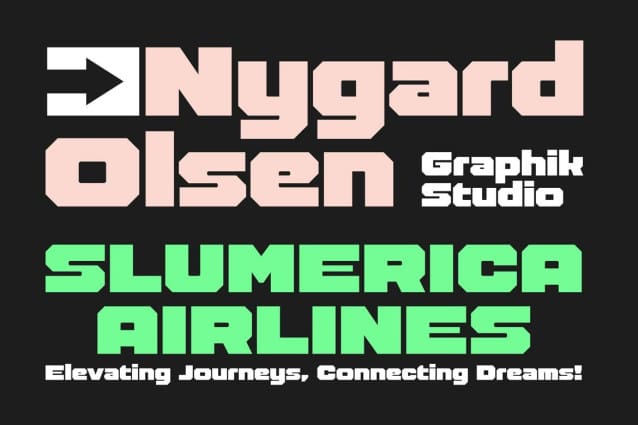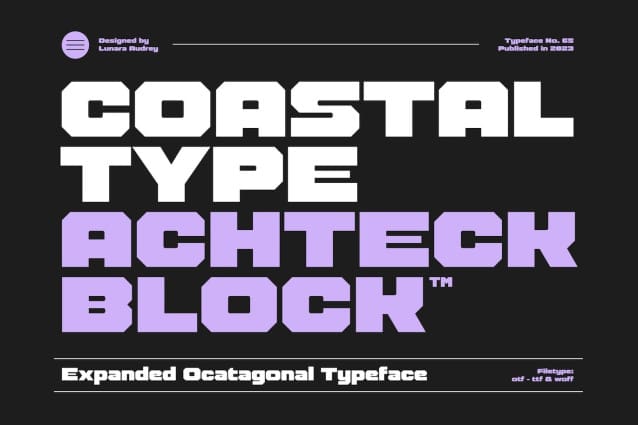
Achteck Block Font
Achteck Block Font, where modernity meets strength! Up your design game with the extended octagonal edges of this powerful font. Perfect for logos, brands, promotions, posters, book covers, magazine layouts, social media, headlines, movie titles and website layouts. Be bold with AchteckBlock: unleash your strength, define it